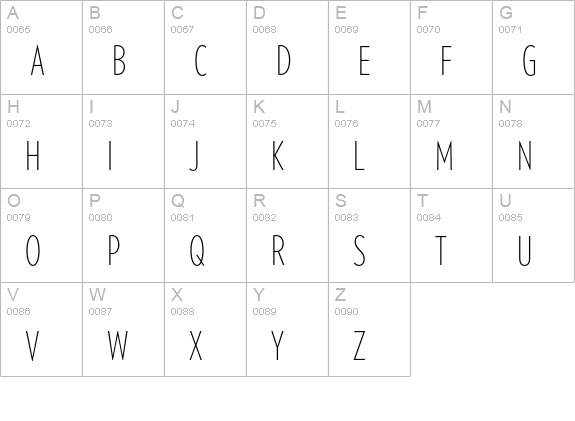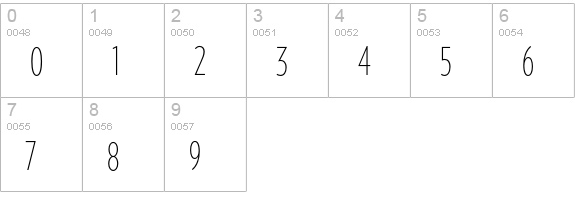
Verlag Compressed XLight Font Details
Verlag Compressed XLight is a distinctive, condensed-width variant in the Verlag typeface family \xE2\x80\x94 well suited to design and typography projects.
Verlag Compressed XLight is a sleek and modern font that exudes sophistication and elegance. With its slim and delicate letterforms, this typeface is perfect for creating a refined and polished look in your design projects. The XLight weight adds a touch of subtlety, making it ideal for conveying a sense of minimalism and sophistication. The best part about Verlag Compressed XLight font is that it is available for free download at FontsMarket.com. This means you can easily access this high-quality typeface without any cost, making it a versatile and budget-friendly option for your creative endeavors. Whether you're designing a logo, creating branding materials, or working on a publication, Verlag Compressed XLight is sure to elevate your designs with its clean and contemporary aesthetic. Download Verlag Compressed XLight font today from FontsMarket.com and experience the elegance and versatility of this beautiful typeface for yourself.